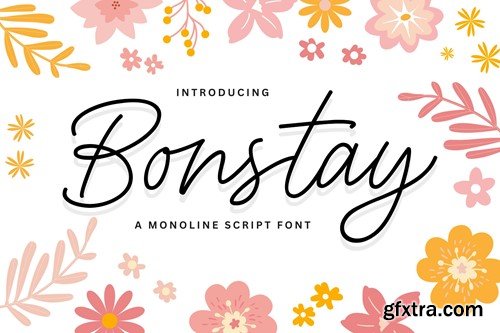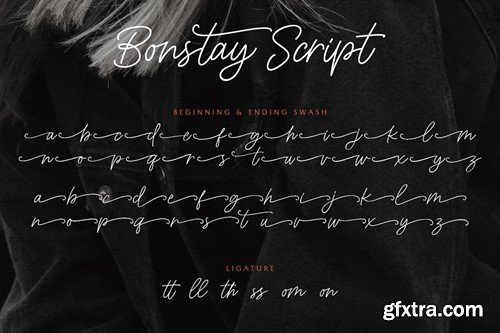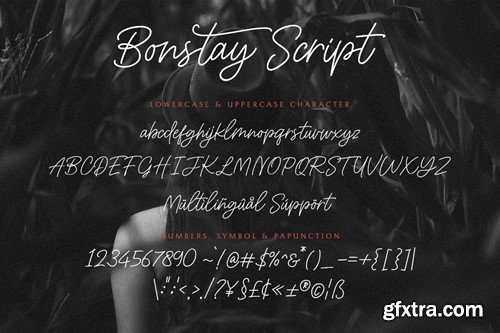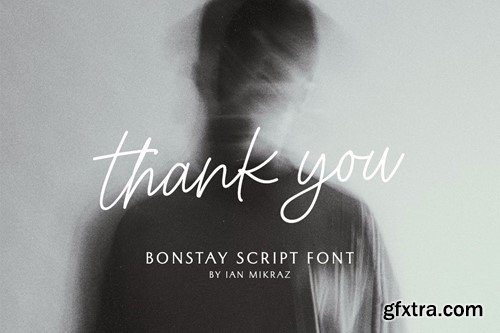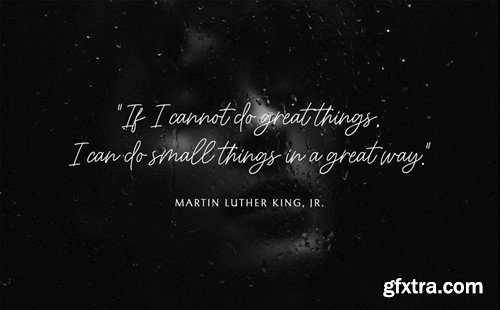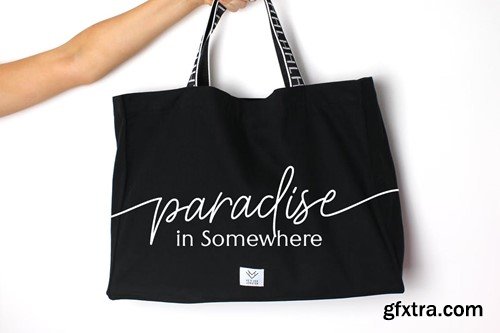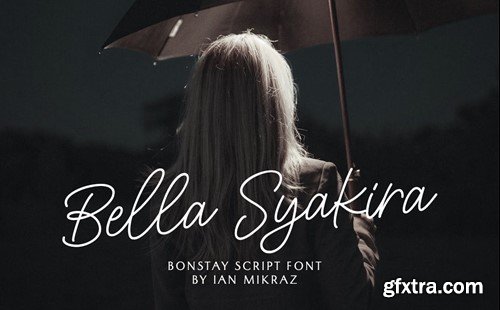
邦Stay - 一款Monoline手写体字体SVRW96W
Bonstay - A Monoline Script Font Bonstay is a sophisticated monoline script font that exudes an air of elegance and refinement. Its graceful letterforms and fluid strokes make it an ideal choice for projects that require a touch of timeless sophistication. Whether you're working on wedding invitations, luxury branding, or high-end product packaging, Bonstay adds a touch of class and elegance that elevates your designs to new heights. With its versatile nature and exquisite details, Bonstay is the perfect companion for designers seeking to create refined and sophisticated visuals that leave a lasting impression of luxury and style. Introducing Bonstay, the monoline script font designed for those who appreciate the beauty of timeless elegance. With its sleek and graceful letterforms, Bonstay brings a touch of sophistication to any project, from elegant wedding stationery to high-end fashion branding. Its versatility and refined details make it a perfect choice for designers aiming to create visuals that embody class and luxury. Elevate your designs with the subtle charm of Bonstay and create visuals that exude an aura of sophistication and timeless beauty. Features File Include: Thank you